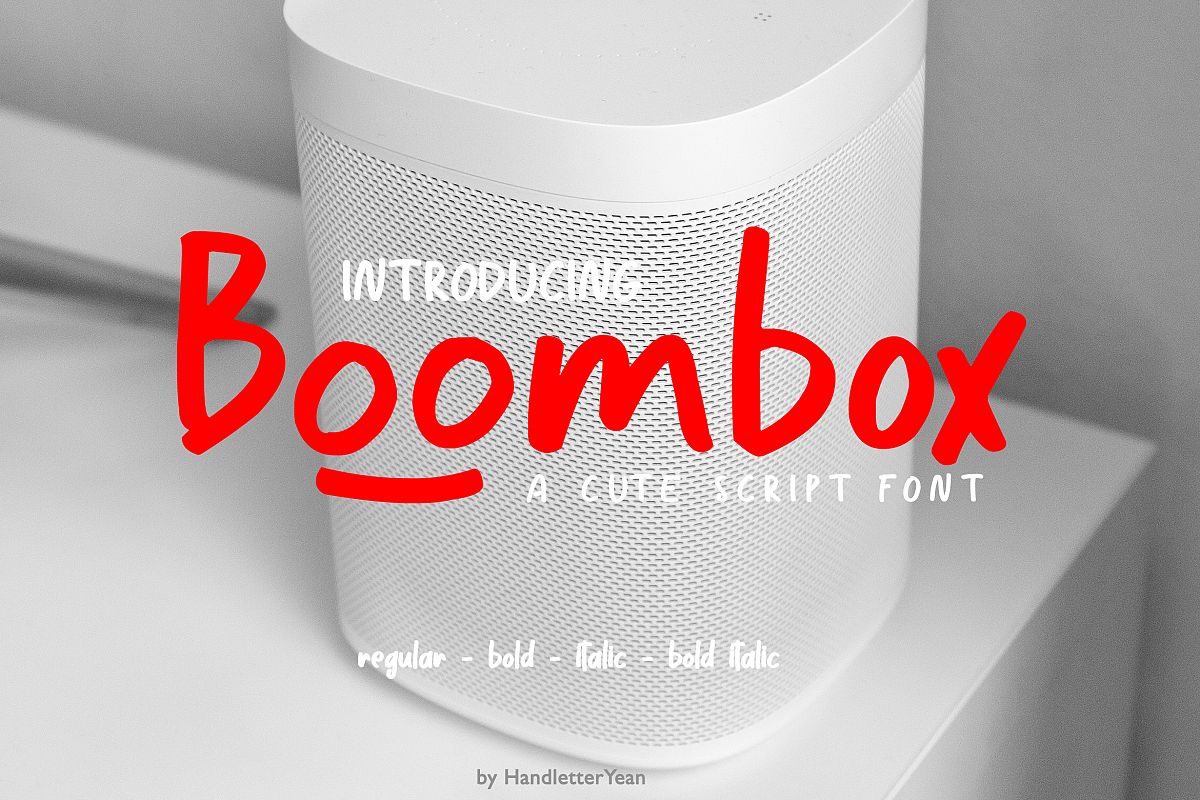
Boombox
Boombox is a cute script font which was made to resemble cuteness and playfulness around us in our daily life. With Boombox you can make any of your design look fun and cheerful, you can use it on posters, invitation, quotation, product design, packaging, and many more. Cheer up, everyone!
2. Style in this font include: Regular, Bold, Italic, Bold italic